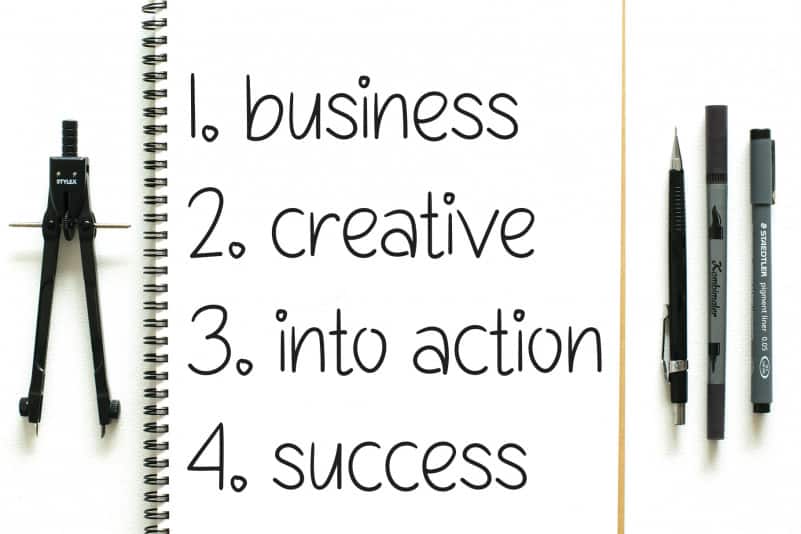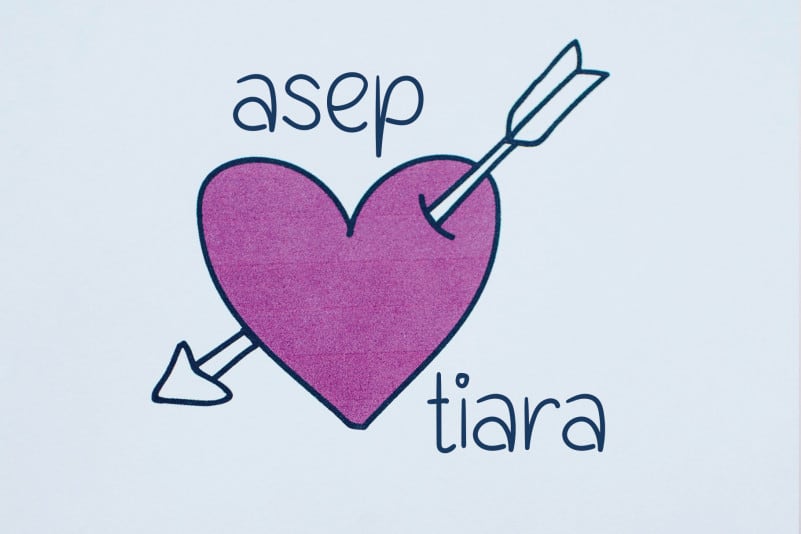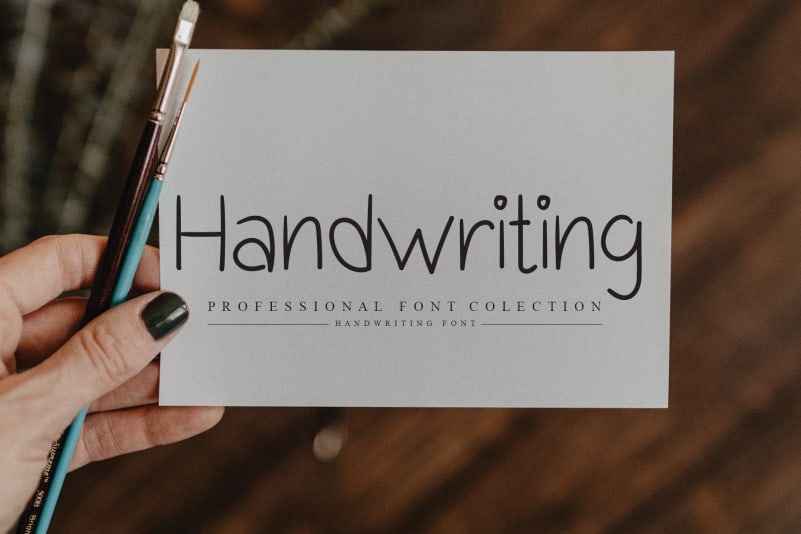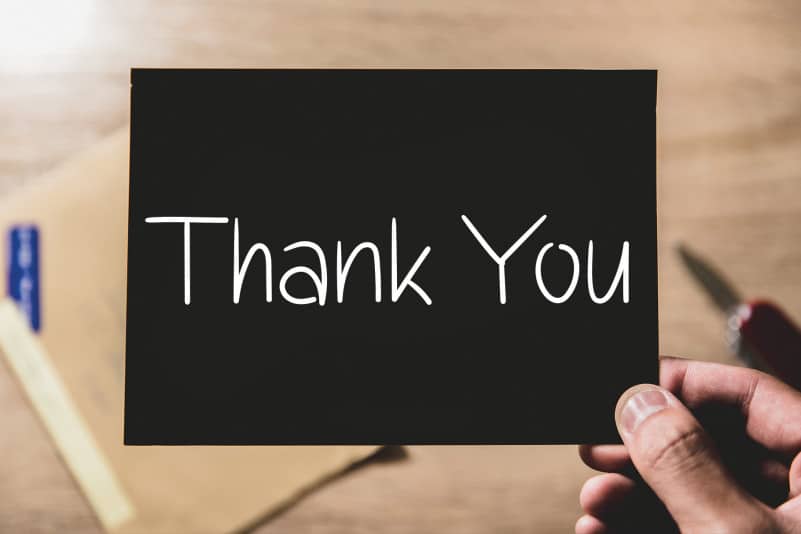
Hibiscus Flower Handwritten Font
Hibiscus Flower Handwritten Font is a simple and natural handwritten font. it has wide and spaced characters and as a result, it will make each of your designs stand out!